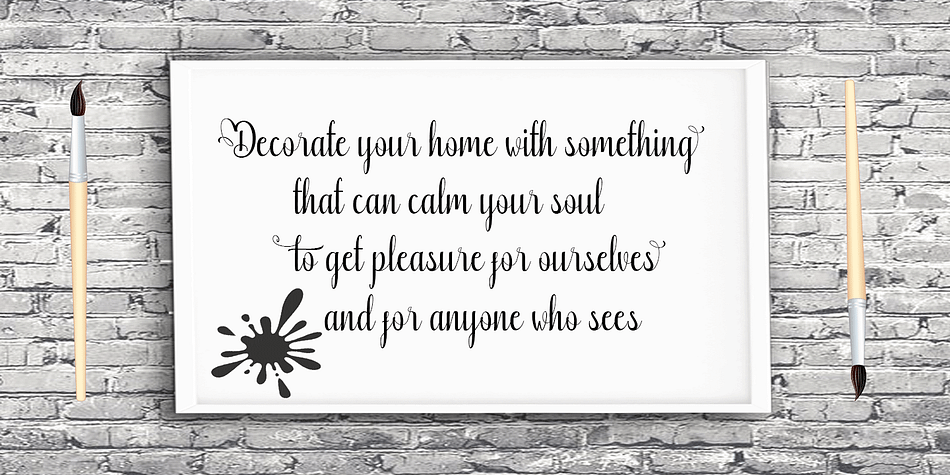
Boutique
Designed by Rahmat Hidayat, Boutique is a modern calligraphy and script font published by RtCreative.
Boutique, a work that is purely handwritten, has natural characteristics. It’s perfect for invitations, signatures, blogs, social media, business cards, product brands.
Boutique is a simple font that has Stylistic standards, Stylistic Alternatives. and includes uppercase and lowercase letters, numbers and punctuation.